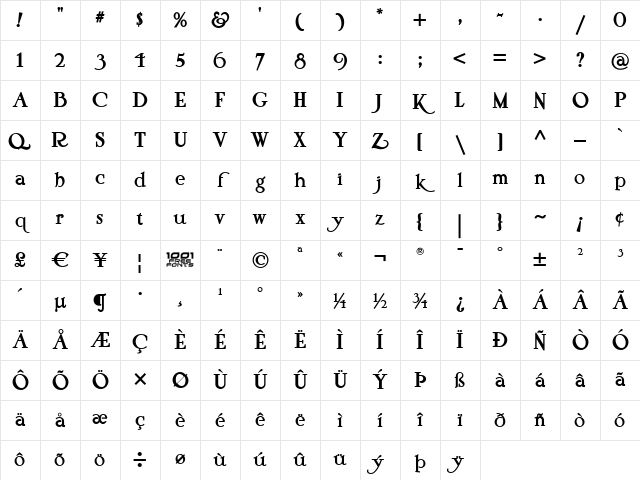
Pyriform Tones NF Regular
Foundry: Nick's Fonts
Designer: Nick Curtis
Design Context for Pyriform Tones NF
Pyriform Tones NF is a composed and adaptable typeface that performs quietly and consistently across a wide range of design contexts.